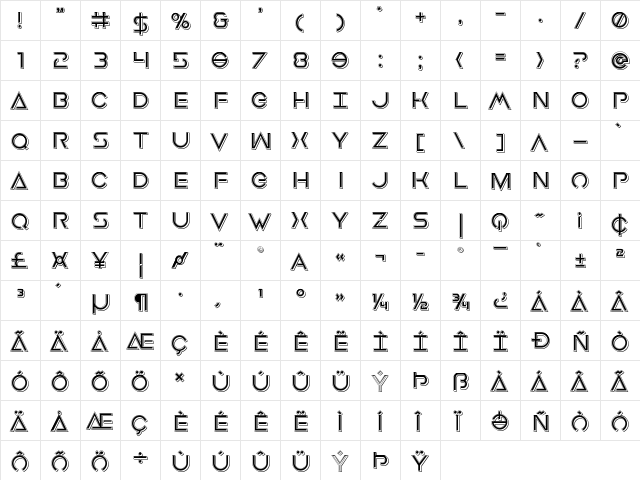
Earth Orbiter Punch Regular
Design Context for Earth Orbiter Punch Typeface
Earth Orbiter Punch takes a measured approach to typography — its balanced proportions and neutral character make it a reliable workhorse for both digital and print work.